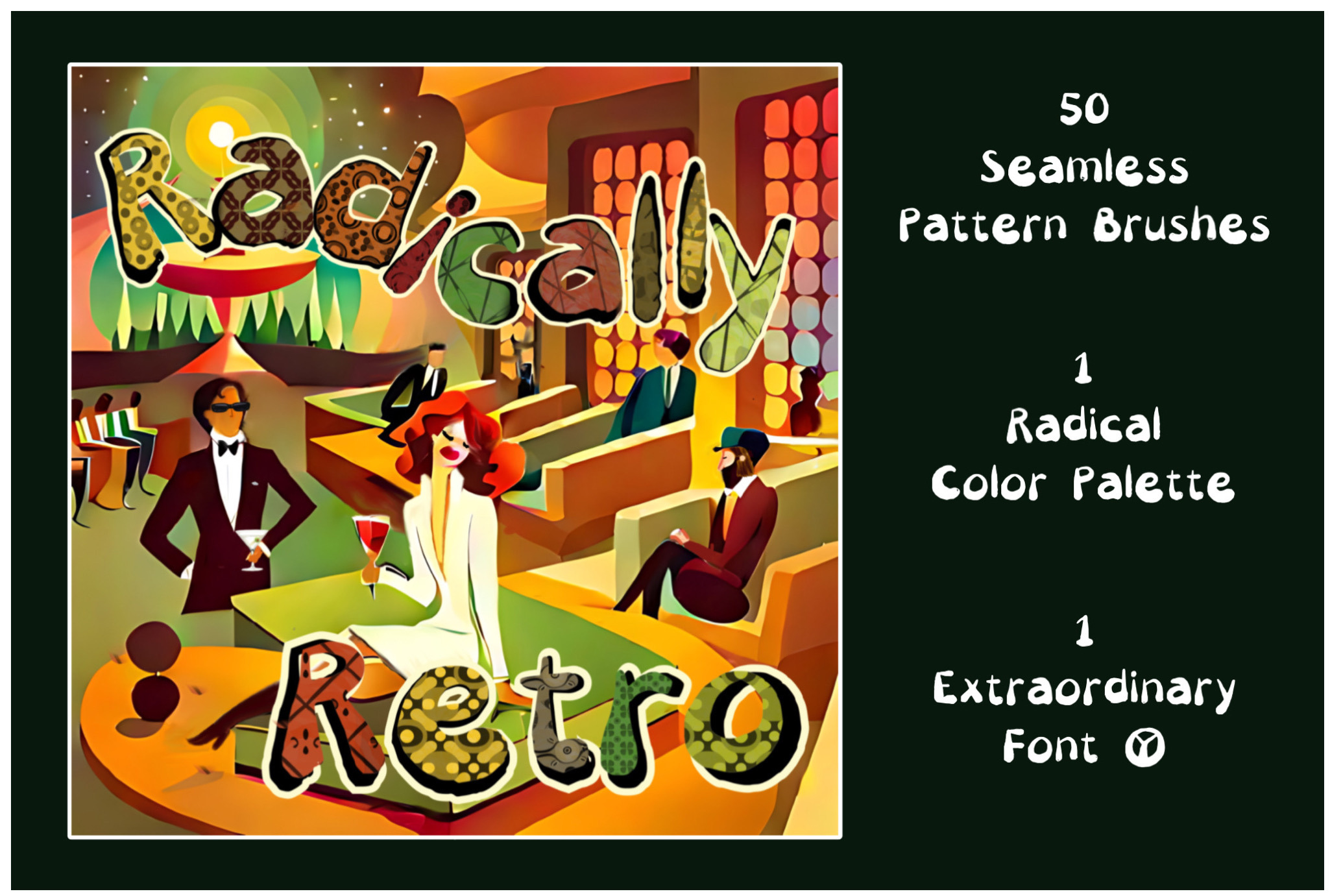
Retro 70s Pattern Brush Kit w Font
This Retro 70s Procreate brush collection includes 50 vintage pattern brushes, a mindfully-cultivated color palette featuring rich and vibrant earth tones that are authentic to the time, and a unique and playful new font called, “Radically Retro” in OTF and TTF format